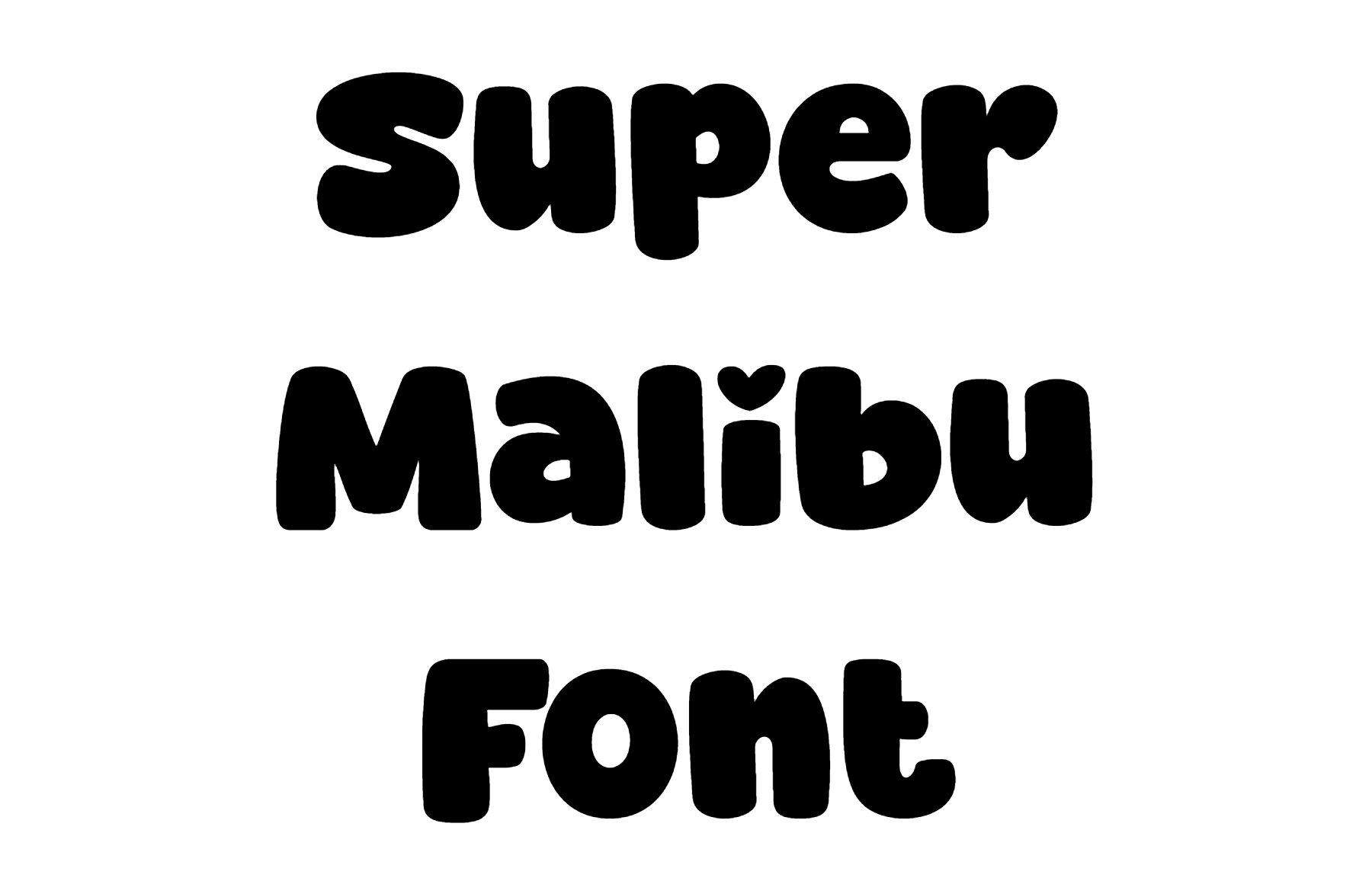
Super Malibu
Super Malibu is a cartoon font. It has a cheerful, hand-drawn look that makes people smile before they even read the words. You can download it for free and test it with your own words in the preview above.
What You Can Type With Super Malibu
You get every letter from A to Z in both cases and all the numbers from 0 to 9, which means Super Malibu can handle full sentences, dates and prices. Everyday marks like &, !, ? and @ are there too. Thanks to its accented letters, it also works for Spanish, French, German, Portuguese and Italian, not just English.
Where Super Malibu Works Best
Designers usually reach for fonts like Super Malibu when they're making kids' books, birthday invites and fun YouTube thumbnails. Its lowercase letters are tall compared to the capitals, which keeps it readable at smaller sizes. Cartoon fonts are great for short, fun lines. If you place it over a busy photo, add a thick outline or a drop shadow so it stays readable.
Does Super Malibu support accented letters?
Yes. Super Malibu includes the accented letters needed for Spanish, French, German, Portuguese and Italian, so it works for more than just English.